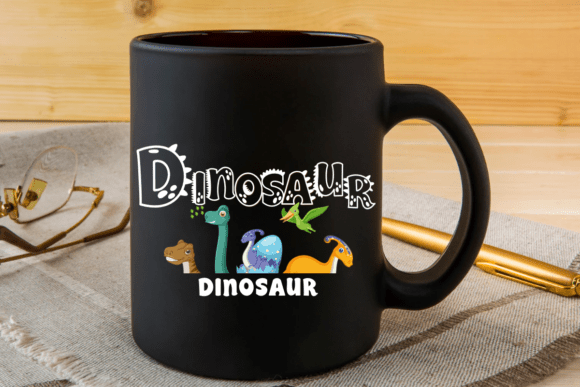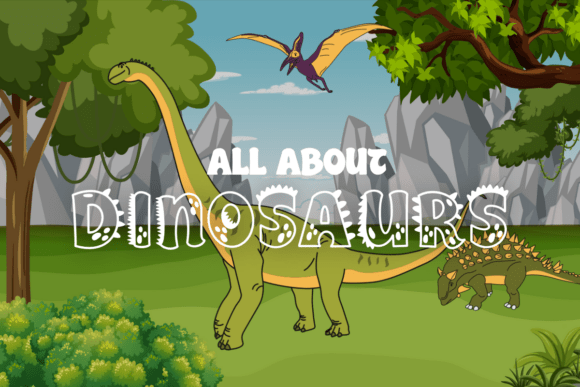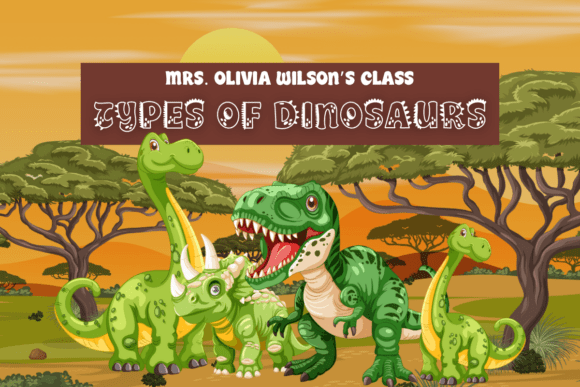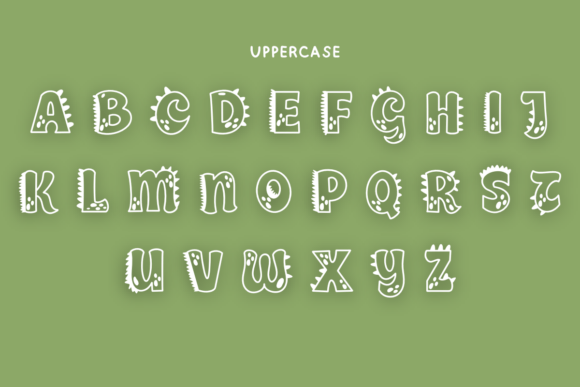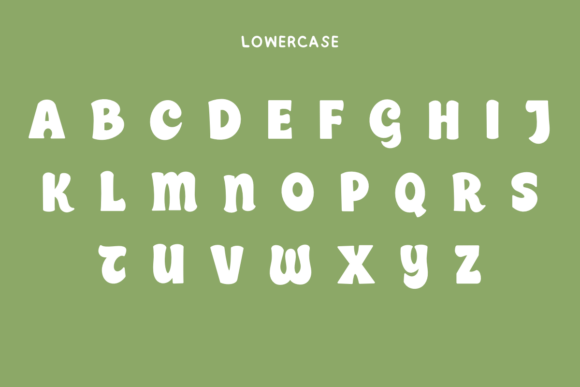
Unleash Your Creativity with the Dinosaur Font
Are you looking for a font that can add a touch of whimsy and playfulness to your designs? Look no further than the Dinosaur font. This decorative font is perfect for designers and crafters who want to add a unique and eye-catching element to their work. In this article, we’ll explore the features and benefits of the Dinosaur font, and show you how to use it to unleash your creativity and take your designs to the next level.
The Charm of Dinosaur Font
The Dinosaur font is a decorative font that is sure to capture the attention of your audience. Its distinctive flair makes it perfect for a variety of design projects, from notetaking and diary entries to greeting cards and social media posts. The font’s playful and whimsical design is reminiscent of a bygone era, and is sure to bring a smile to the face of anyone who sees it.
Uses for Dinosaur Font
The Dinosaur font is incredibly versatile, and can be used in a wide range of design projects. Here are just a few ideas to get you started:
- Notetaking and Diary Entries: Add a touch of personality to your notes and diary entries with the Dinosaur font. It’s perfect for jotting down quick reminders, or for writing longer, more reflective entries.
- Greeting Cards: Create unique and eye-catching greeting cards with the Dinosaur font. Whether you’re making a birthday card, a holiday card, or just a card to say hello, this font is sure to make your card stand out.
- Banners and Signs: Use the Dinosaur font to create eye-catching banners and signs. Whether you’re advertising a sale, promoting an event, or just decorating a room, this font is sure to grab attention.
- Mugs and Water Bottles: Add a touch of personality to your mugs and water bottles with the Dinosaur font. It’s a great way to make your drinkware stand out, and to add a bit of whimsy to your daily routine.
- T-Shirts and Apparel: Use the Dinosaur font to create unique and eye-catching t-shirts and apparel. Whether you’re making a gift for a friend, or just want to treat yourself, this font is sure to make your apparel stand out.
- Stationery and Paper Crafts: Add a touch of personality to your stationery and paper crafts with the Dinosaur font. It’s perfect for making unique and eye-catching cards, invitations, and other paper crafts.
- Social Media Posts: Use the Dinosaur font to add a touch of whimsy to your social media posts. Whether you’re posting a quick update, or a longer message, this font is sure to make your post stand out.
Benefits of Using Dinosaur Font
There are many benefits to using the Dinosaur font in your designs. Here are just a few:
- Unique and Eye-Catching: The Dinosaur font is a unique and eye-catching font that is sure to grab attention. Its distinctive flair makes it perfect for designers who want to stand out from the crowd.
- Versatile: The Dinosaur font is incredibly versatile, and can be used in a wide range of design projects. Whether you’re making a greeting card, a banner, or a social media post, this font is sure to be a great choice.
- Easy to Use: The Dinosaur font is easy to use, and can be easily integrated into your designs. Whether you’re a seasoned designer, or just starting out, this font is a great choice.
Tips for Using Dinosaur Font
Here are a few tips for using the Dinosaur font in your designs:
- Use it Sparingly: While the Dinosaur font is eye-catching, it’s best to use it sparingly. Use it to add a touch of personality to your designs, but avoid overusing it.
- Pair it with Other Fonts: The Dinosaur font pairs well with other fonts, such as sans-serif fonts or script fonts. Experiment with different font combinations to find the one that works best for your design.
- Experiment with Colors: The Dinosaur font looks great in a variety of colors. Experiment with different colors to find the one that works best for your design.
The Dinosaur font is a unique and eye-catching font that is sure to add a touch of whimsy to your designs. Its versatility and ease of use make it a great choice for designers and crafters of all levels. Whether you’re making a greeting card, a banner, or a social media post, the Dinosaur font is sure to make your design stand out. So why not give it a try, and see how it can help you unleash your creativity and take your designs to the next level?